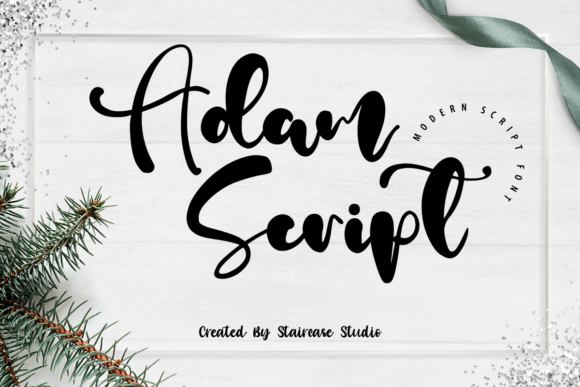
The Quest for the Perfect Script Font: Discovering Adam Script
I’ll never forget the time I was working on a wedding invitation project, and my client asked for a font that was “relaxed, yet elegant.” I scoured the internet, tried out countless script fonts, but none seemed to fit the bill. That was until I stumbled upon Adam Script. This modern script font has been a game-changer for my creative projects, and I’m excited to share my experience with you.
An Honest Review of Adam Script
- ✨ Relaxed and authentic feel: Adam Script has a unique, laid-back vibe that’s perfect for creative projects that need a personal touch.
- ✅ Highly legible: Despite its script nature, Adam Script is surprisingly easy to read, even at smaller font sizes.
- 💫 Versatile: This font is suitable for a wide range of projects, from wedding invitations to Christmas cards, name tags, and personal branding.
While Adam Script is an excellent font, it’s not without its quirks. For example:
- ⚠️ Limited character set: Adam Script might not have all the characters you need for a specific project. Be sure to check the font’s capabilities before committing to it.
- 🤔 Occasional kerning issues: As with any script font, you might encounter some kerning issues, especially when using it at larger font sizes.
The Backstory of Adam Script
Adam Script was designed by a team of typographers who wanted to create a modern script font that was both relaxed and authentic. Inspired by everyday handwriting, they crafted a font that’s perfect for creative projects that need a personal touch. While the designer’s story might be fictional, their passion for typography is evident in the font’s design.
| Font Name | Adam Script Font |
| Author | staircasestudio20 |
| What is Adam Script? | Adam Script is a modern script font that’s designed to look relaxed and authentic. |
| Does Adam Script support OpenType features? | Yes, Adam Script supports OpenType features, including glyphs, stylistic alternates, and more. |